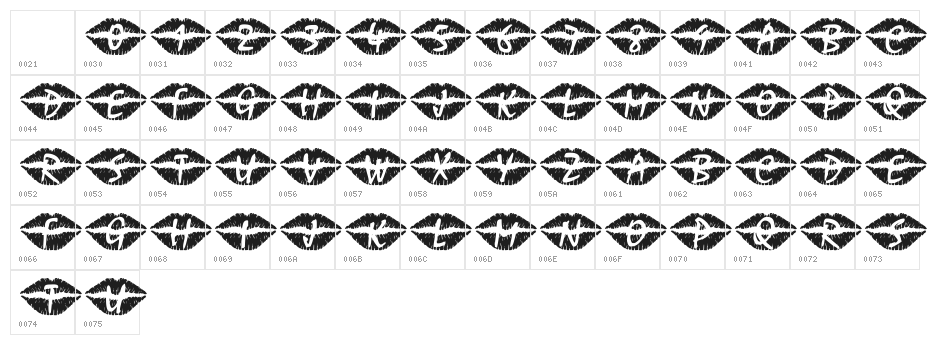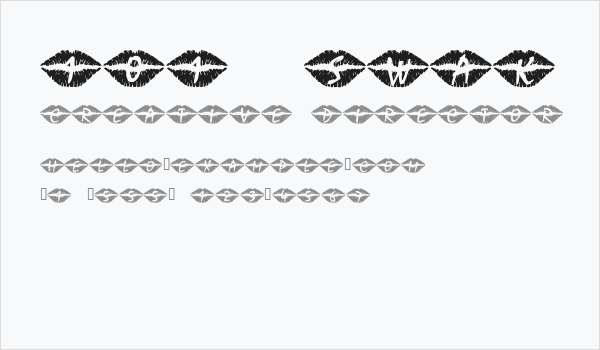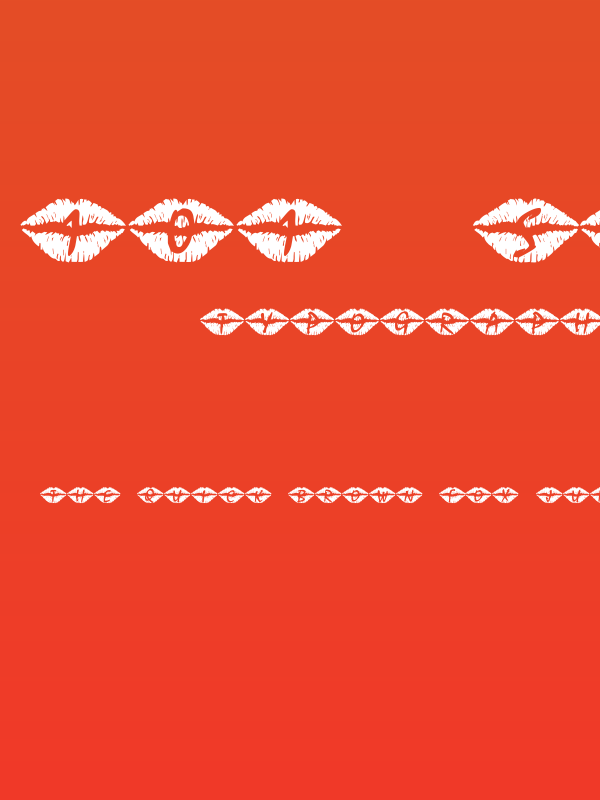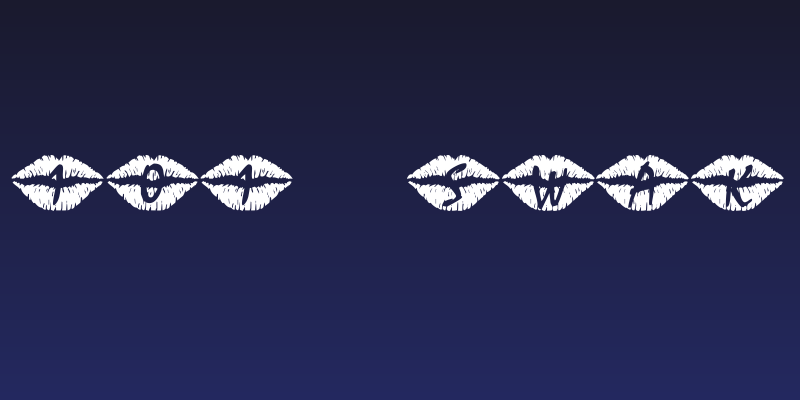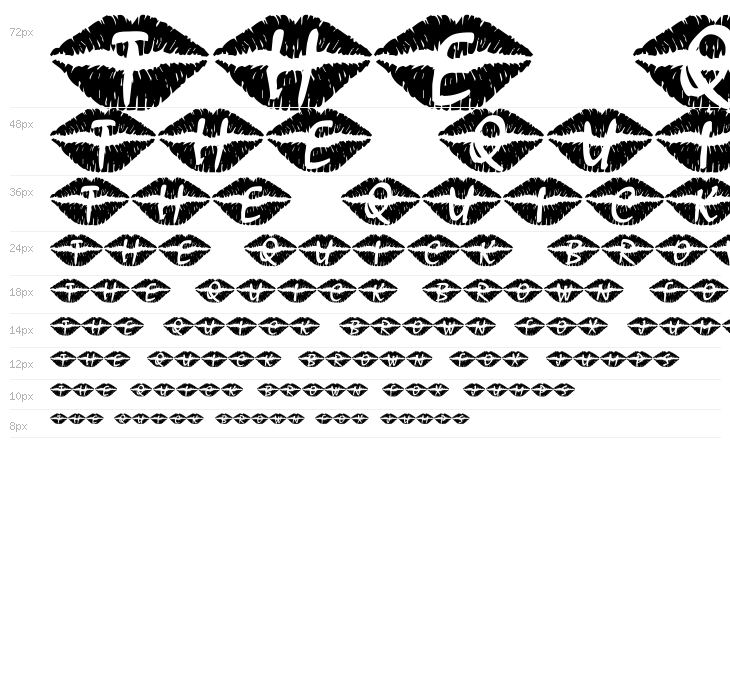
101! SWAK Font
101! SWAK Description
This font features a unique design where each character is enclosed within a stylized lip shape, giving it a playful and decorative appearance. The characters themselves are bold and slightly condensed, with a hand-drawn aesthetic that adds to the whimsical nature of the font. The overall style is decorative and modern, making it stand out for creative projects. The font includes both uppercase and lowercase letters, numbers, and a selection of special characters, all maintaining the consistent lip motif. This distinctive style is ideal for projects that require a fun and eye-catching typeface.
BoldYes
ItalicNo
WidthCondensed
Character SpacingMonospaced
ContrastMedium
Overall StyleDecorative
Use CaseLogos, Headlines, Posters
Proposed ProjectsIdeal for greeting cards, playful branding, event invitations, and creative posters.